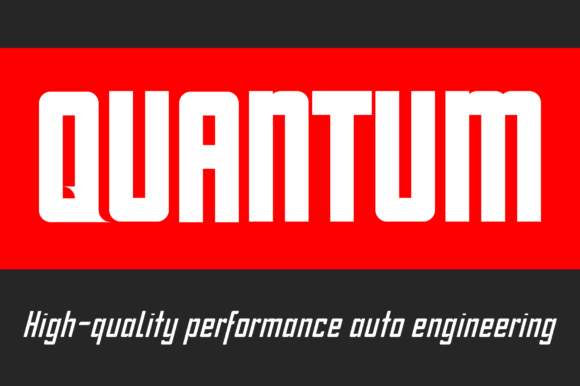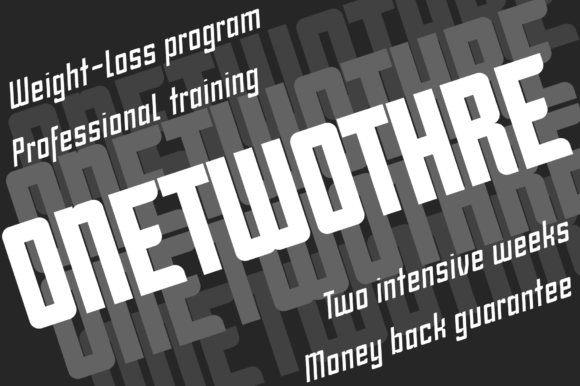
Bricked Font: The Perfect Blend of Bold, Clean, and Quirky
In the world of typography, fonts play a crucial role in conveying the tone and personality of a brand or project. For designers and crafters looking for a unique and eye-catching font, Bricked Font is an excellent choice. This bold display font is clean, quirky, and versatile, making it perfect for various applications, from logos and branding to social media and DIY projects.
What is Bricked Font?
Bricked Font is a carefully crafted display font that combines boldness with a clean and slightly quirky aesthetic. Its unique design makes it stand out from more traditional fonts, offering a fresh and modern look that’s sure to grab attention. Whether you’re working on a logo, a social media post, or a crafty DIY project, Bricked Font provides the perfect blend of style and personality.
Key Features of Bricked Font
- Bold and Eye-Catching: Bricked Font is designed to make a statement. Its bold strokes and clean lines ensure that your text stands out, whether it’s used in a logo, a headline, or a social media post.
- Clean and Modern: Despite its boldness, Bricked Font maintains a clean and modern look. This balance makes it versatile enough to be used in various contexts, from professional branding to more casual DIY projects.
- Quirky and Unique: What sets Bricked Font apart is its quirky charm. It has a personality that can add a playful touch to your designs, making them more engaging and memorable.
- Versatile: Bricked Font is not limited to one type of project. It’s suitable for logos, branding, social media graphics, and a wide range of DIY projects, offering flexibility for designers and crafters.
Uses of Bricked Font
Bricked Font’s versatility is one of its strongest assets. Here are some of the many ways you can use this font:
- Logos and Branding: Create a lasting impression with a bold and unique logo. Bricked Font’s distinctive style can help your brand stand out.
- Social Media Graphics: Enhance your social media presence with eye-catching graphics. Bricked Font is perfect for titles, captions, and highlights, adding a personal touch to your posts.
- Crafty DIY Projects: For crafters and DIY enthusiasts, Bricked Font offers a modern and stylish way to label projects, create signs, or design decorative items.
- Advertising and Marketing: Use Bricked Font in your advertising and marketing materials to grab attention and convey your message effectively.
Tips for Using Bricked Font
To get the most out of Bricked Font, consider the following tips:
- Pair with Simpler Fonts: For body text, pair Bricked Font with simpler, more readable fonts to create contrast and ensure your message is clear.
- Experiment with Colors: Don’t be afraid to experiment with different colors. Bricked Font looks great in bold colors, but it can also be stunning in metallic or pastel shades.
- Play with Sizes: Take advantage of Bricked Font’s versatility by using it in various sizes. Larger sizes are perfect for headlines, while smaller sizes can be used for subheadings or captions.
Bricked Font is a bold, clean, and quirky display font that offers endless possibilities for designers and crafters. Its unique blend of modernity and playfulness makes it an excellent choice for a wide range of projects. Whether you’re looking to create a memorable logo, enhance your social media graphics, or add a personal touch to your DIY projects, Bricked Font is sure to deliver. With its versatility and eye-catching design, Bricked Font is a valuable addition to any design toolkit.